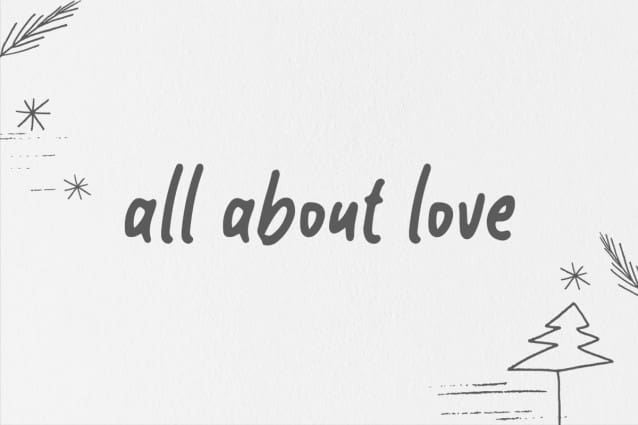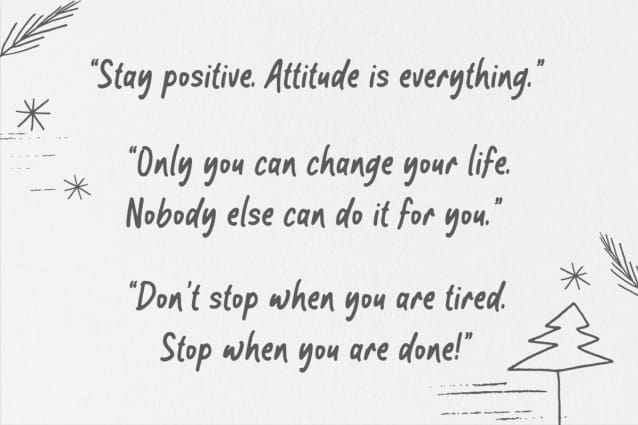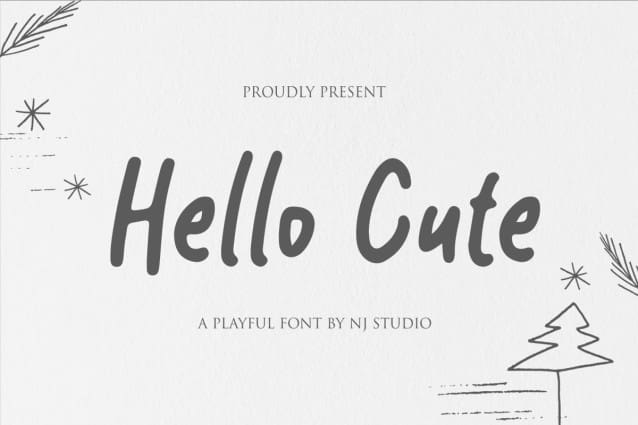
Hello Cute Font
Hello Cute Font a playpul font. It features fun characters that will take your projects to the next level! This font is PUA code which means you can easily access all the glyphs that are full of sans! It also features many special features including glyphs. font designs that are made for various vector designs, printing such as digital wedding blogs, online shops, social media, while printing can be used in the field of product clothing, accessories, bags, pins, logos, business cards, watermarks and many others …